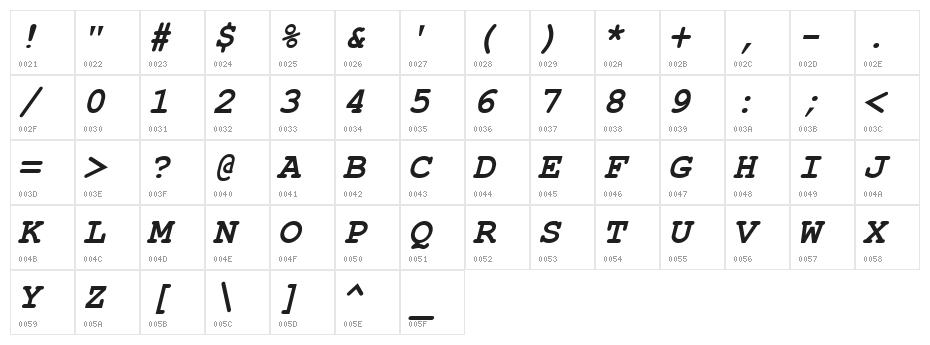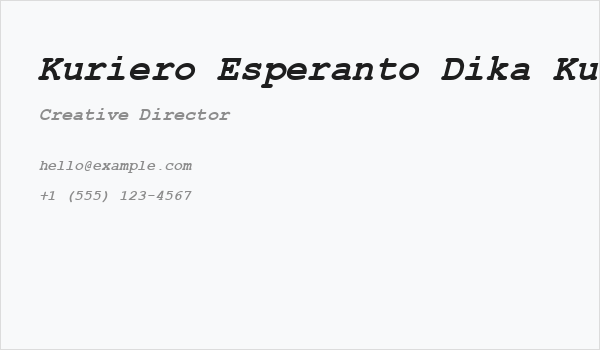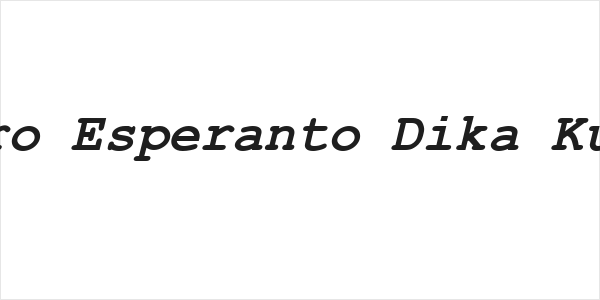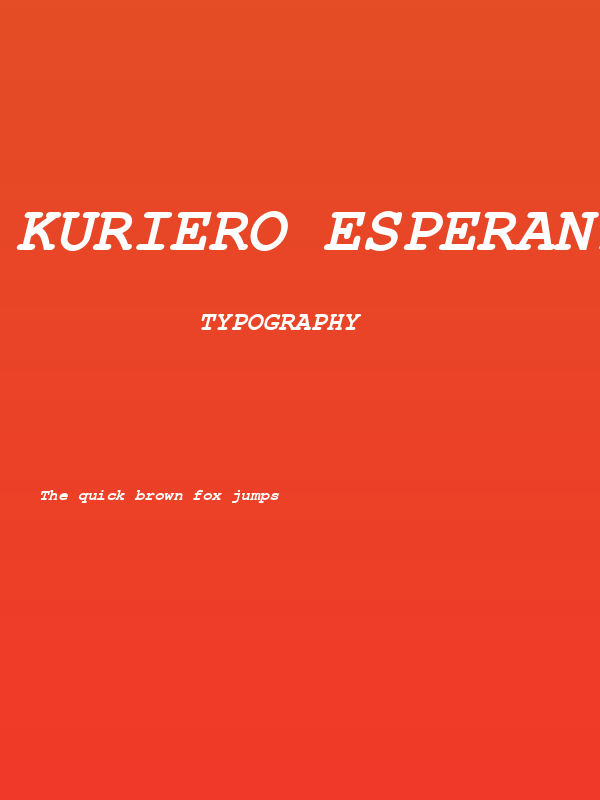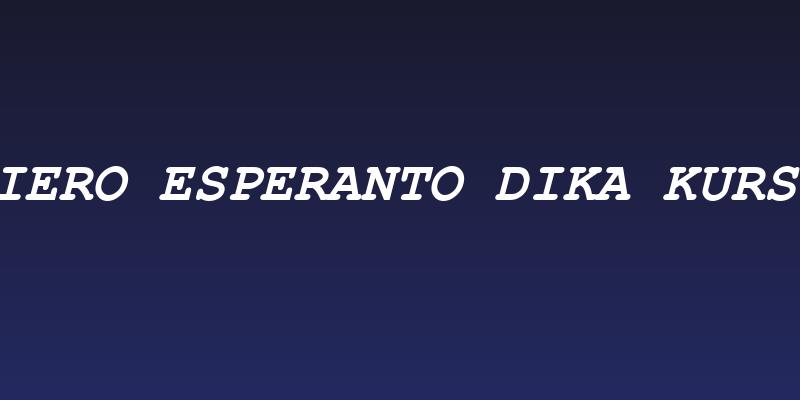
Kuriero Esperanto Dika Kursiva Font
Kuriero Esperanto Dika Kursiva Description
This font features a bold and italicized style, characterized by its strong and dynamic appearance. The letters are slightly slanted, giving it a sense of movement and energy. The strokes are thick, providing a robust and confident look. The font maintains a consistent weight throughout, ensuring readability while adding a touch of elegance. The character spacing is normal, allowing for clear distinction between letters. This style is versatile, suitable for both modern and classic designs, making it ideal for a variety of applications.
| Proposed Projects | Ideal for headlines, posters, branding, and any project requiring a bold statement. |